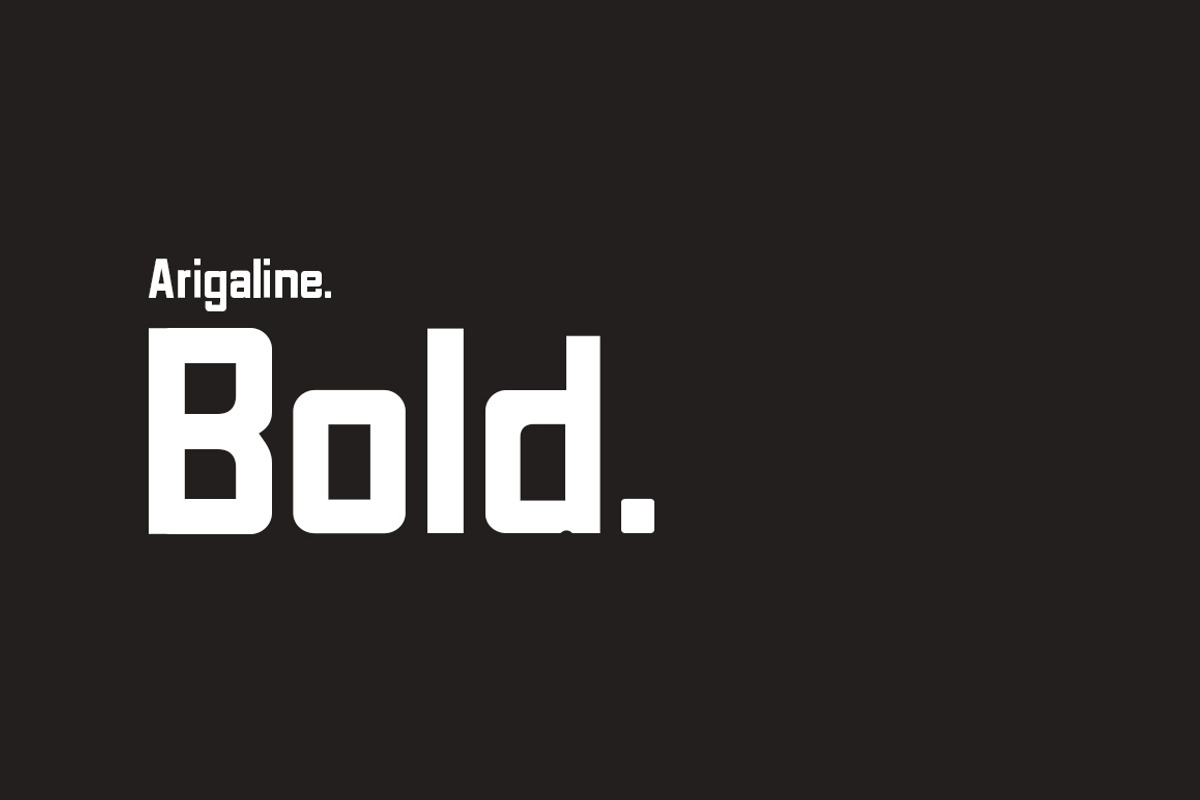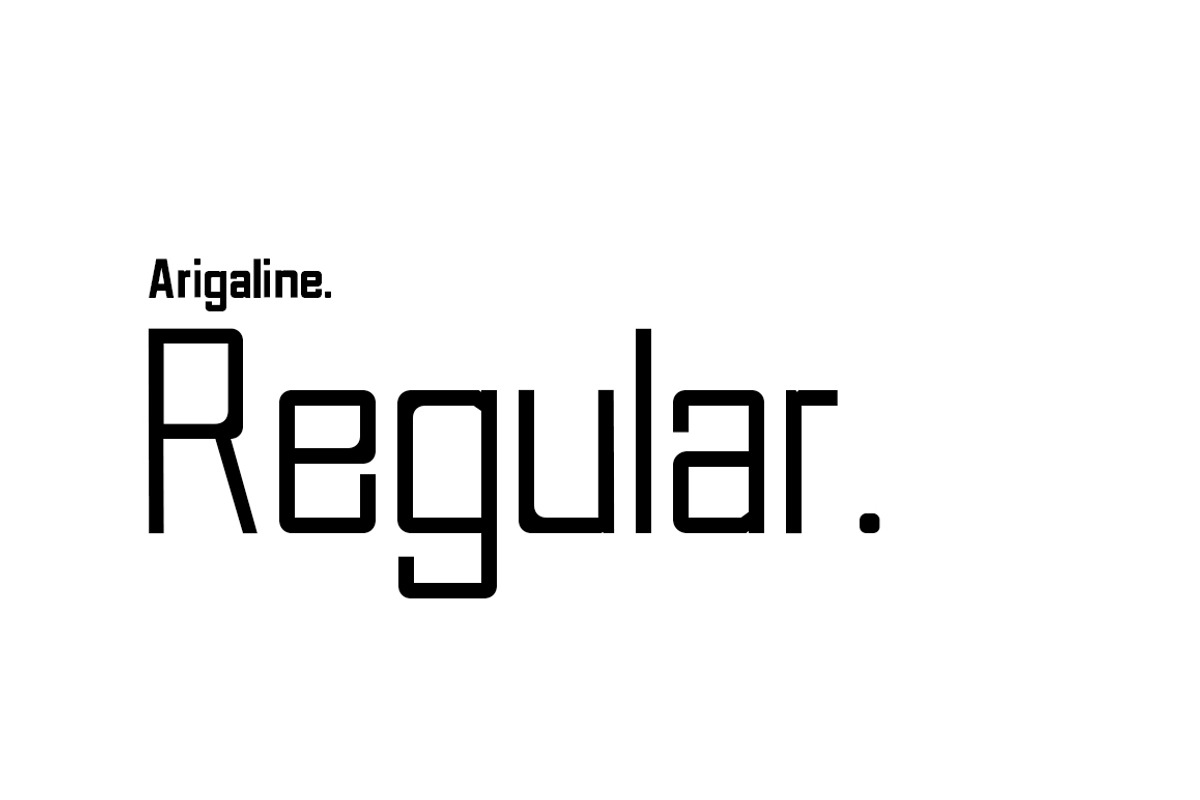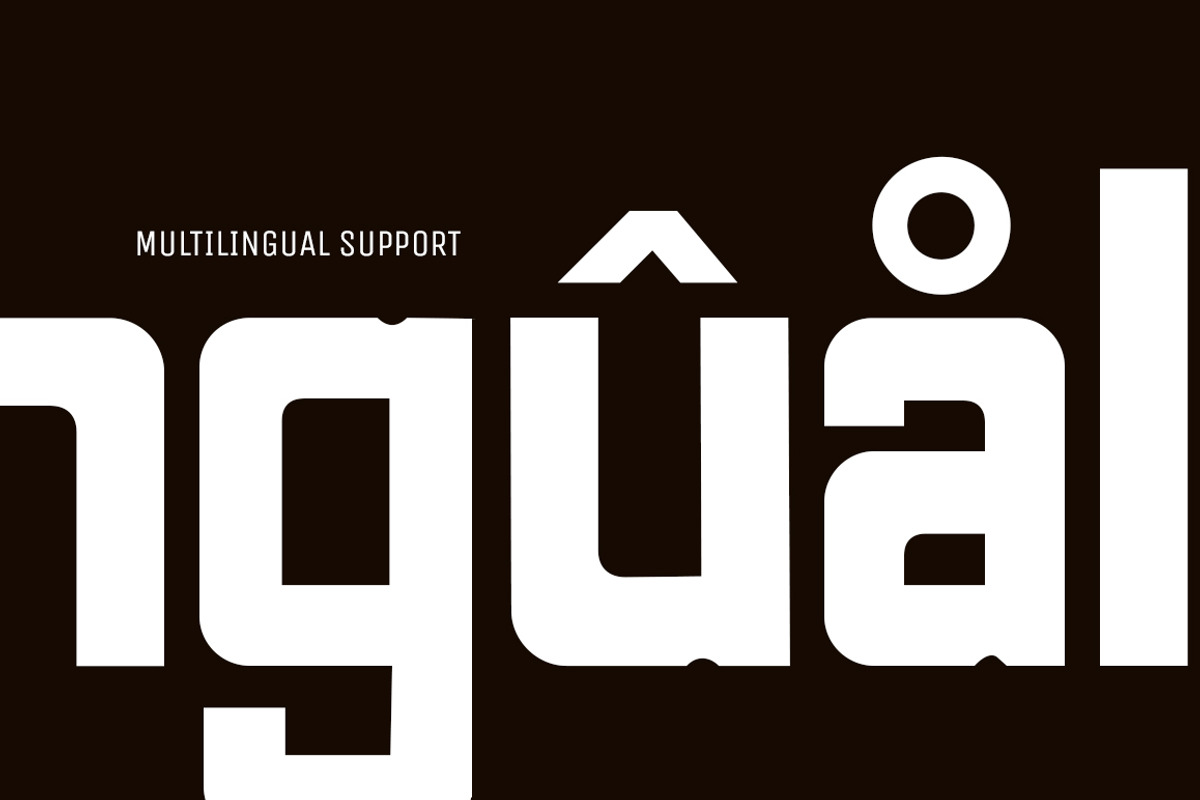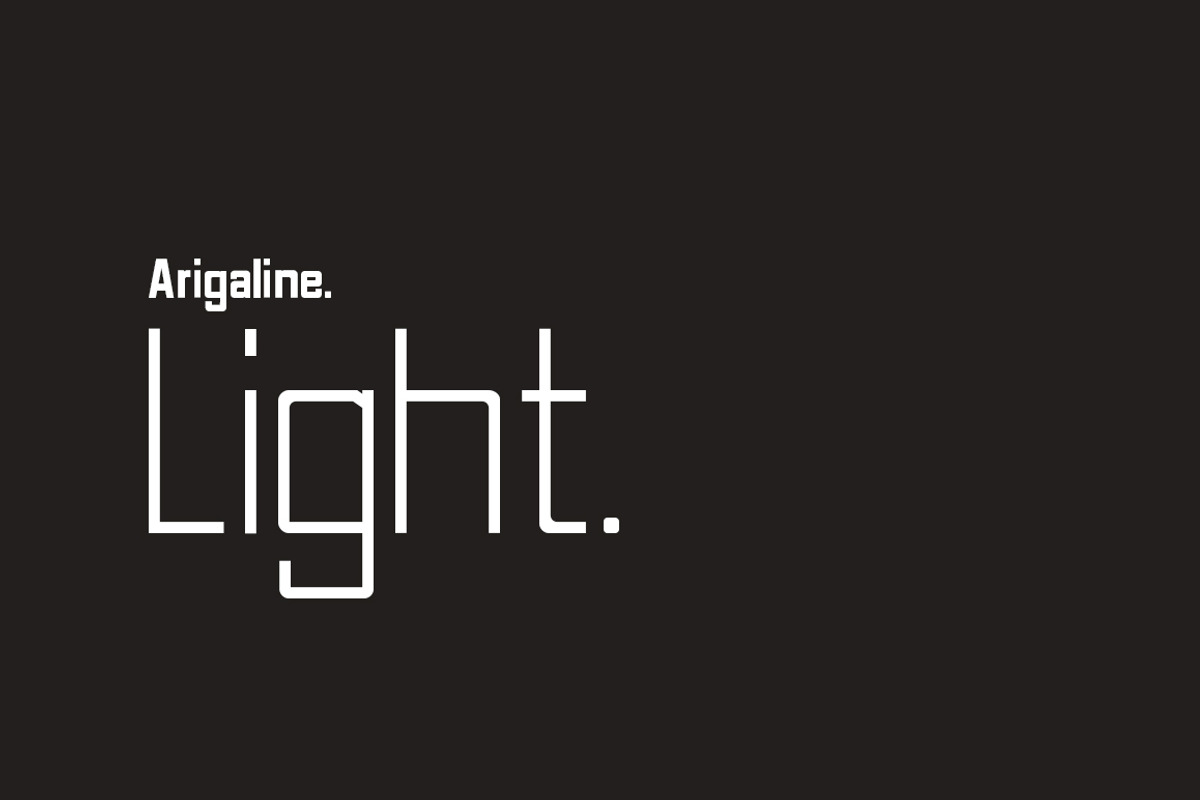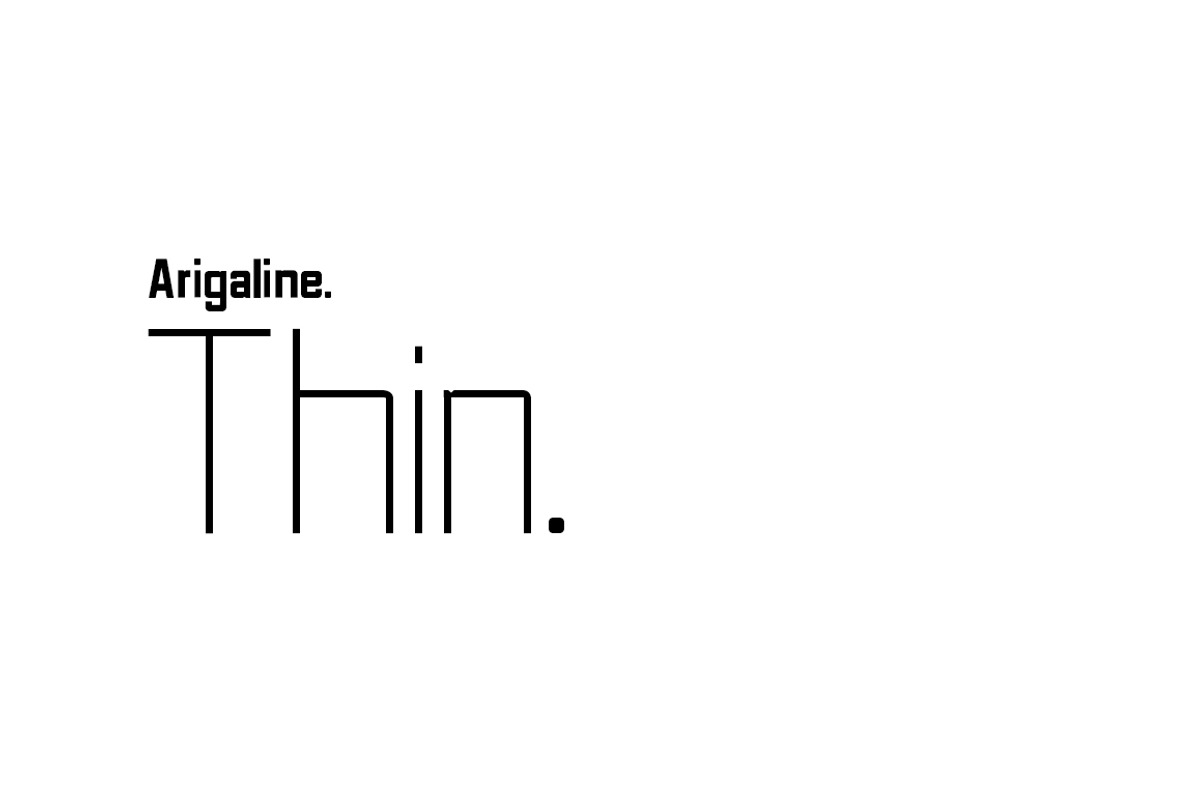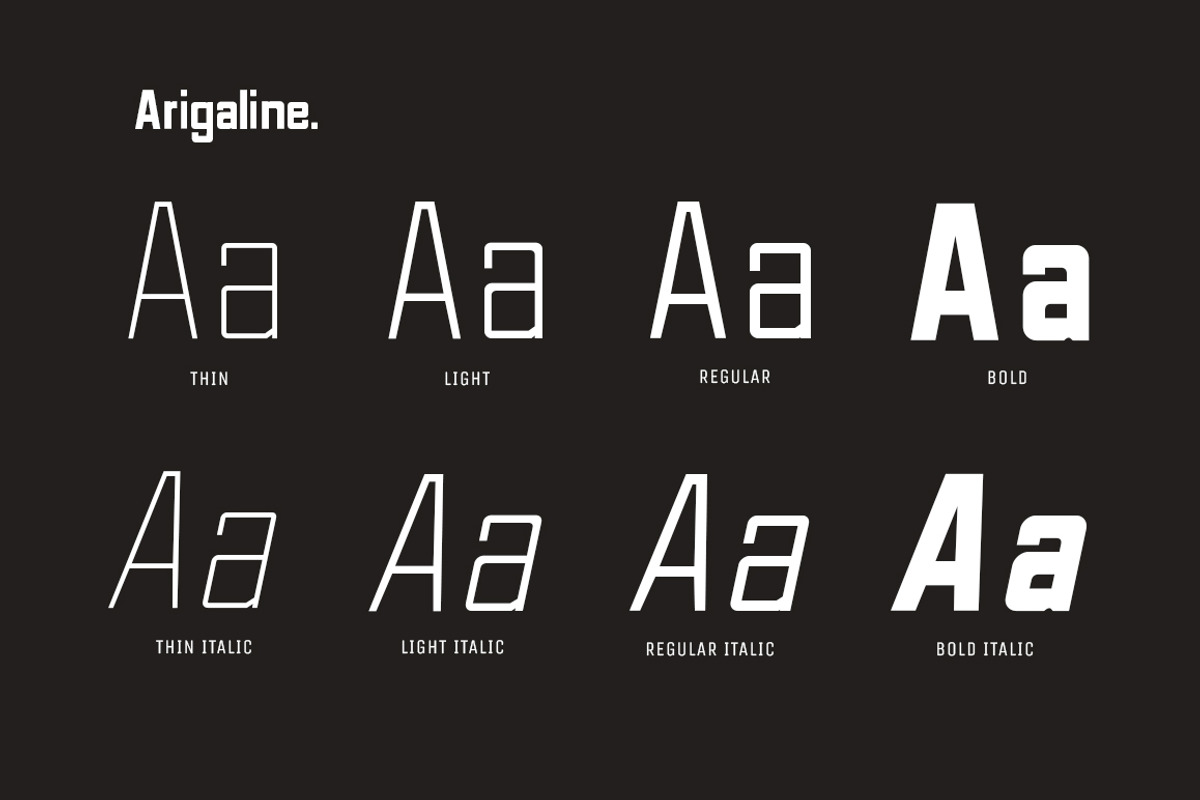
Arigaline | Font Family
Instantly Add Style & Precision To Your Work!
The Arigaline Font Family is group of professional fonts, created with sleek lines and geometric angles to ensure your designs are contemporary and prestigious.
It has been designed specifically for apps, websites, branding, logos, packaging, copy, but is versatile and works with most other projects!
Optimized Kerning for Aesthetic and Highly Readable Texts
If you’re looking for an ultra professional font to impress your clients and consumers, this is the font for you.
Arigaline | Font Family by Zone 6 fits naturally into Branding, posters, packaging, typography.